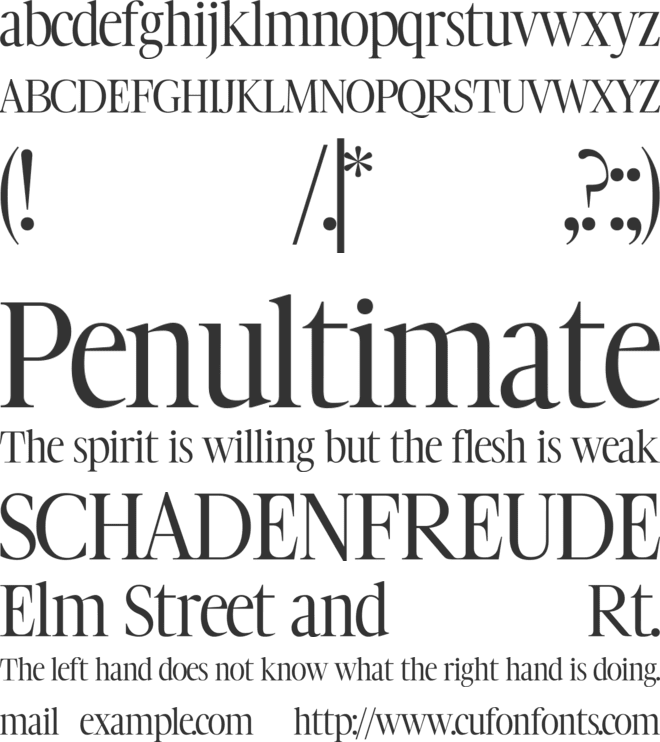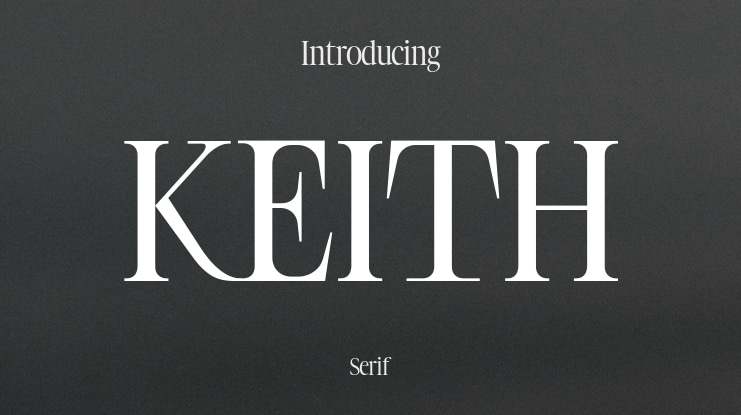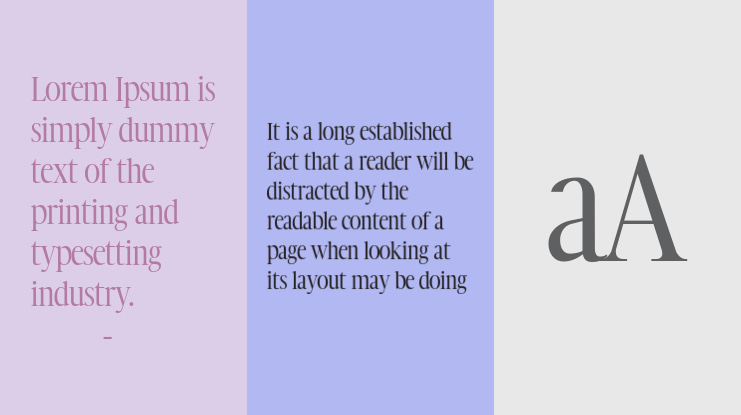
π¨ Font Name: KEITH by Minimalist Art Studio
π¨ Font Description: KEITH is a delicate serif with 570+ glyphs and elegant clarity, ideal for branding, editorial, and romantic lifestyle design.